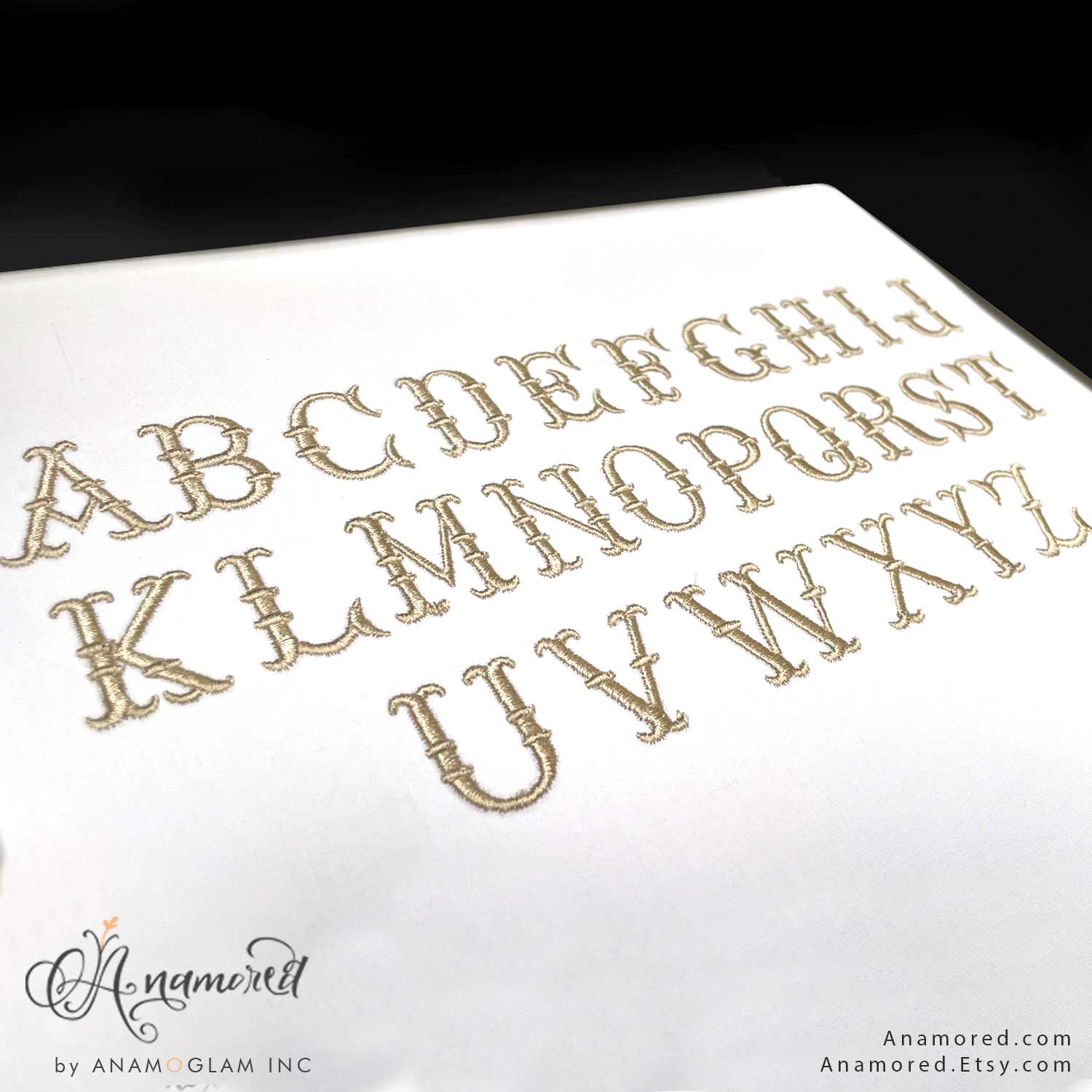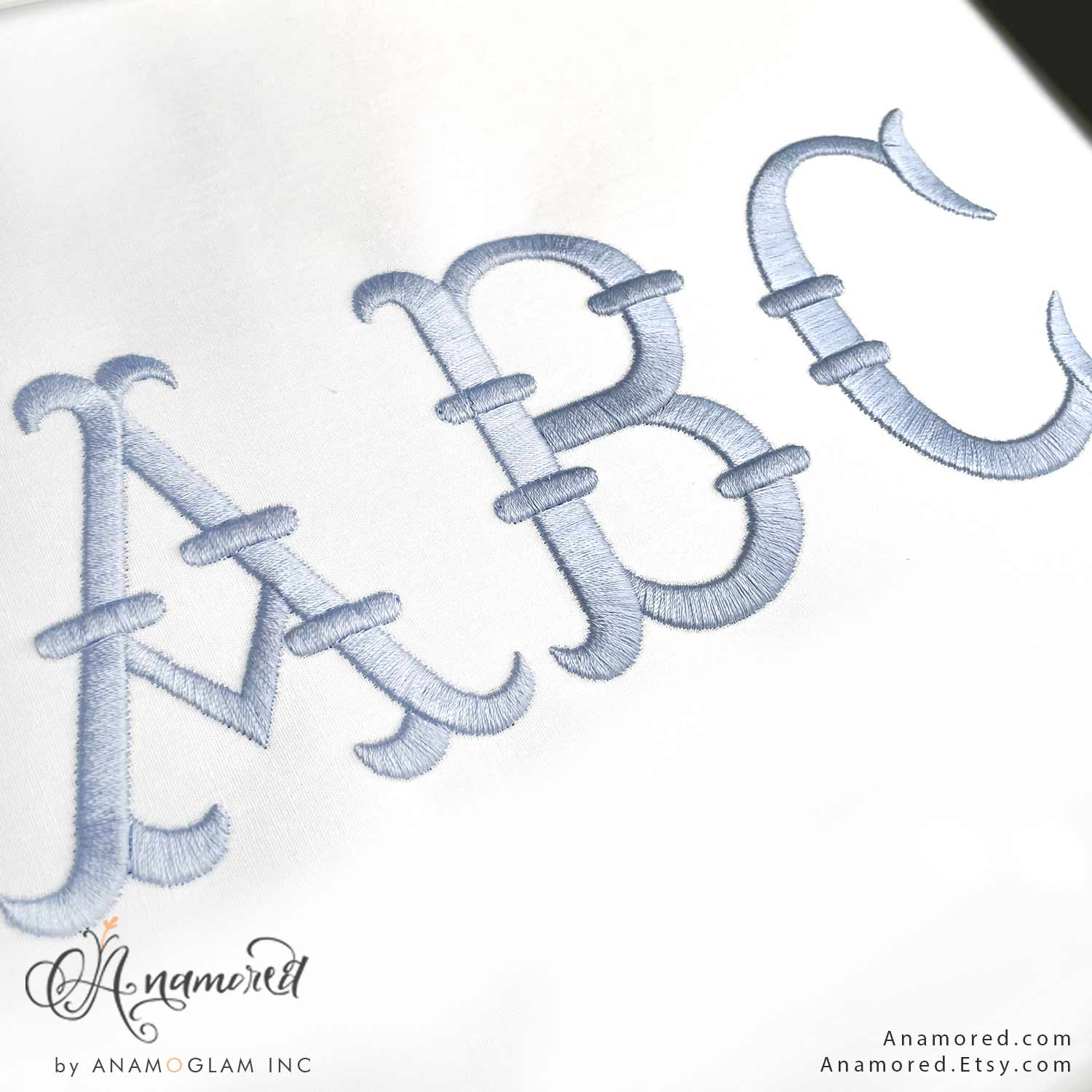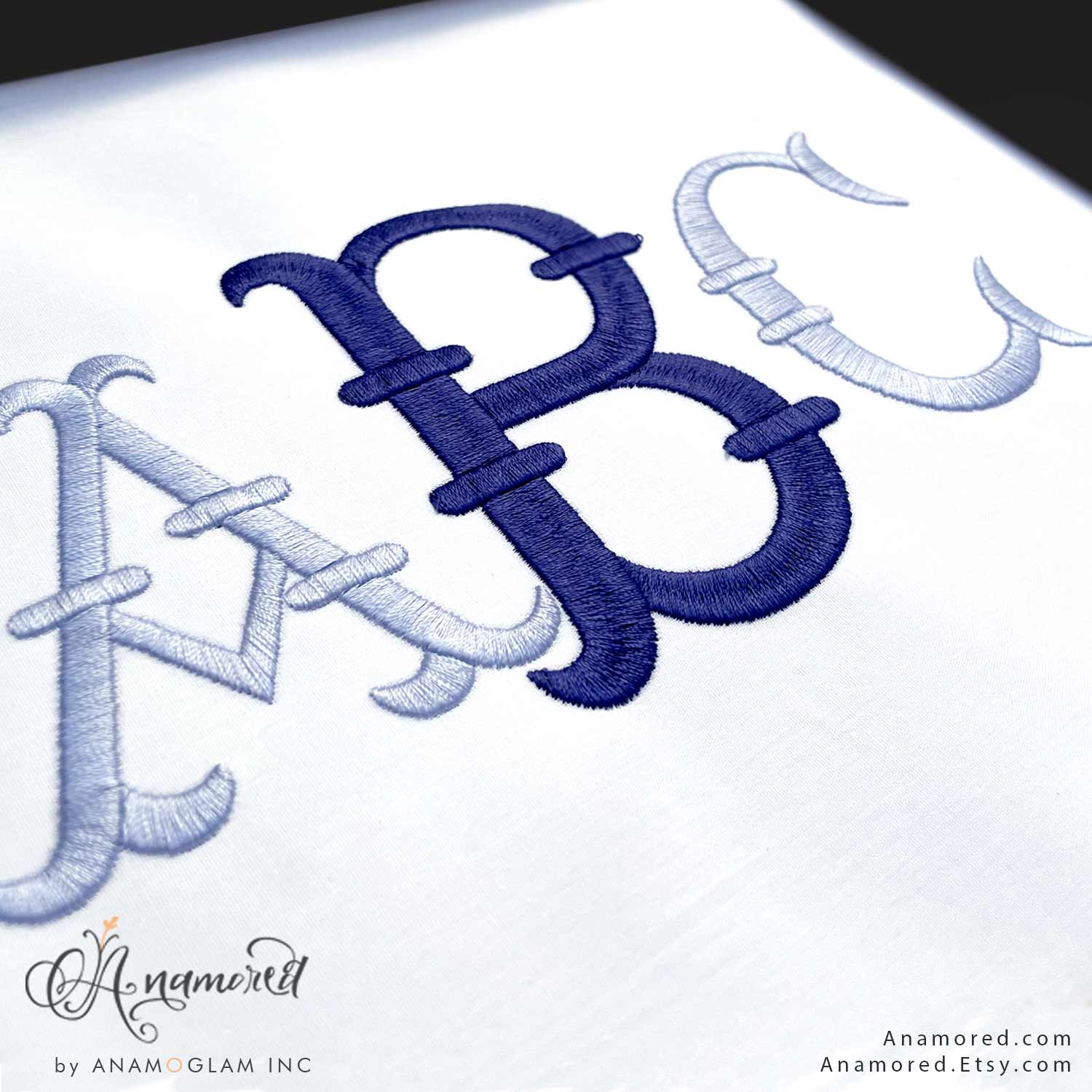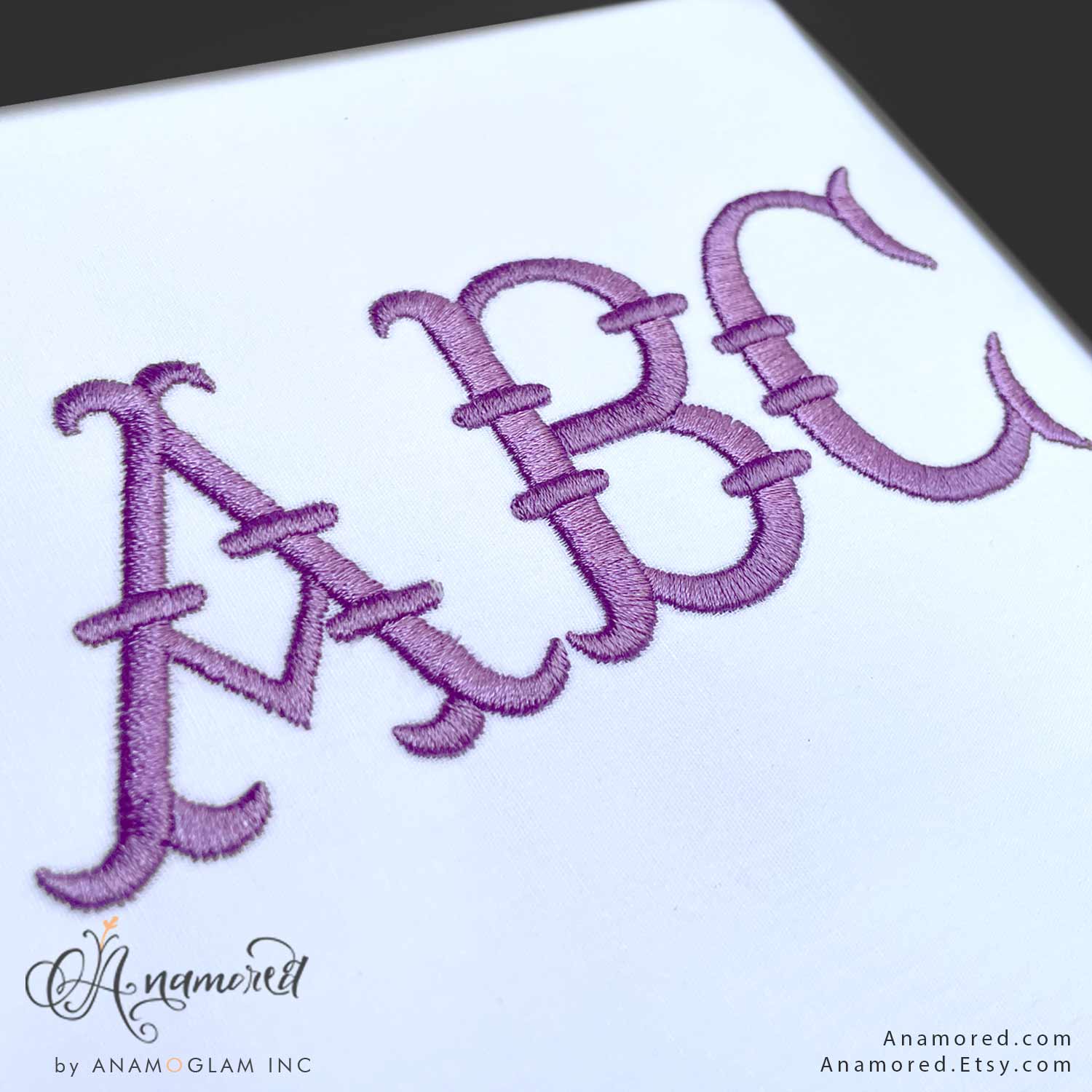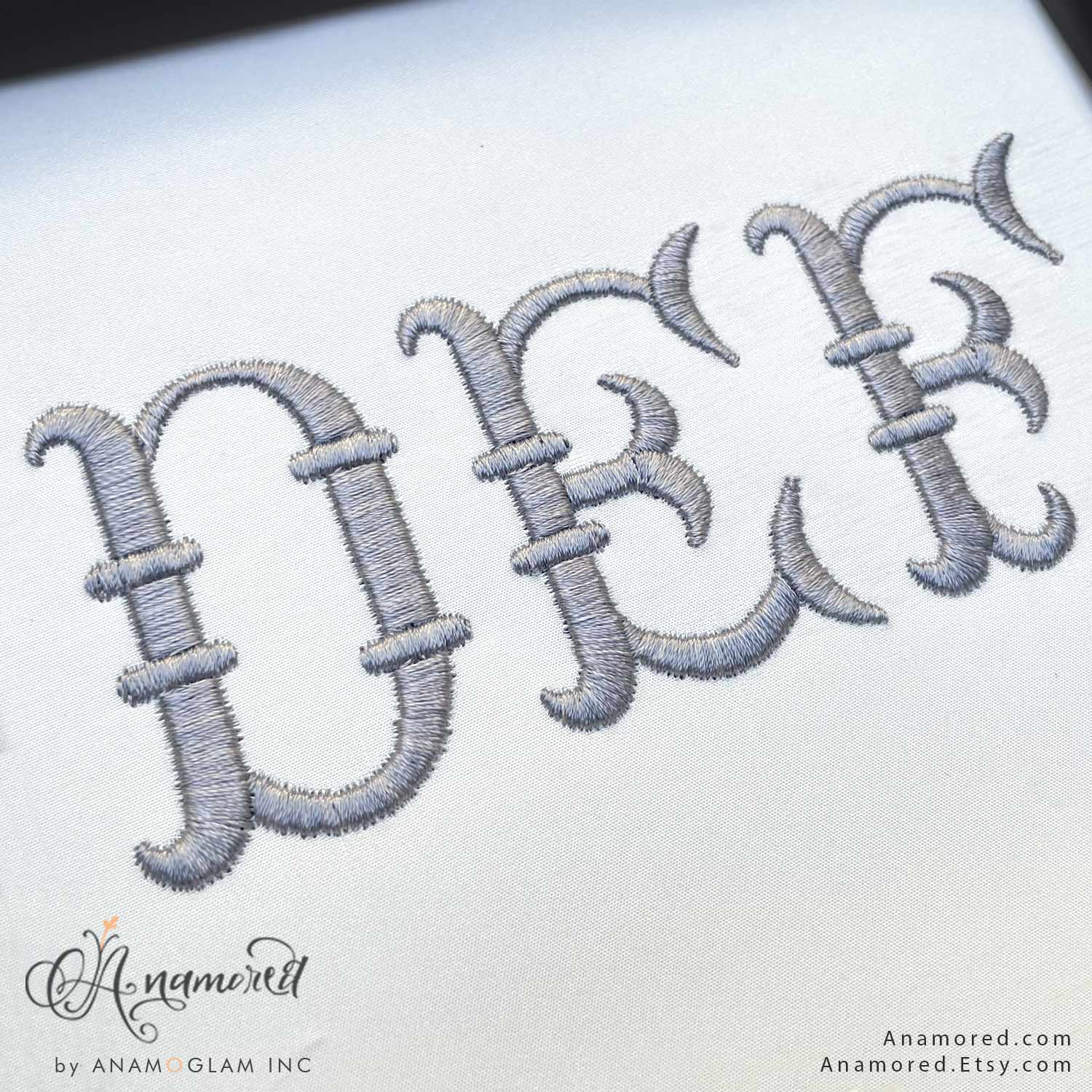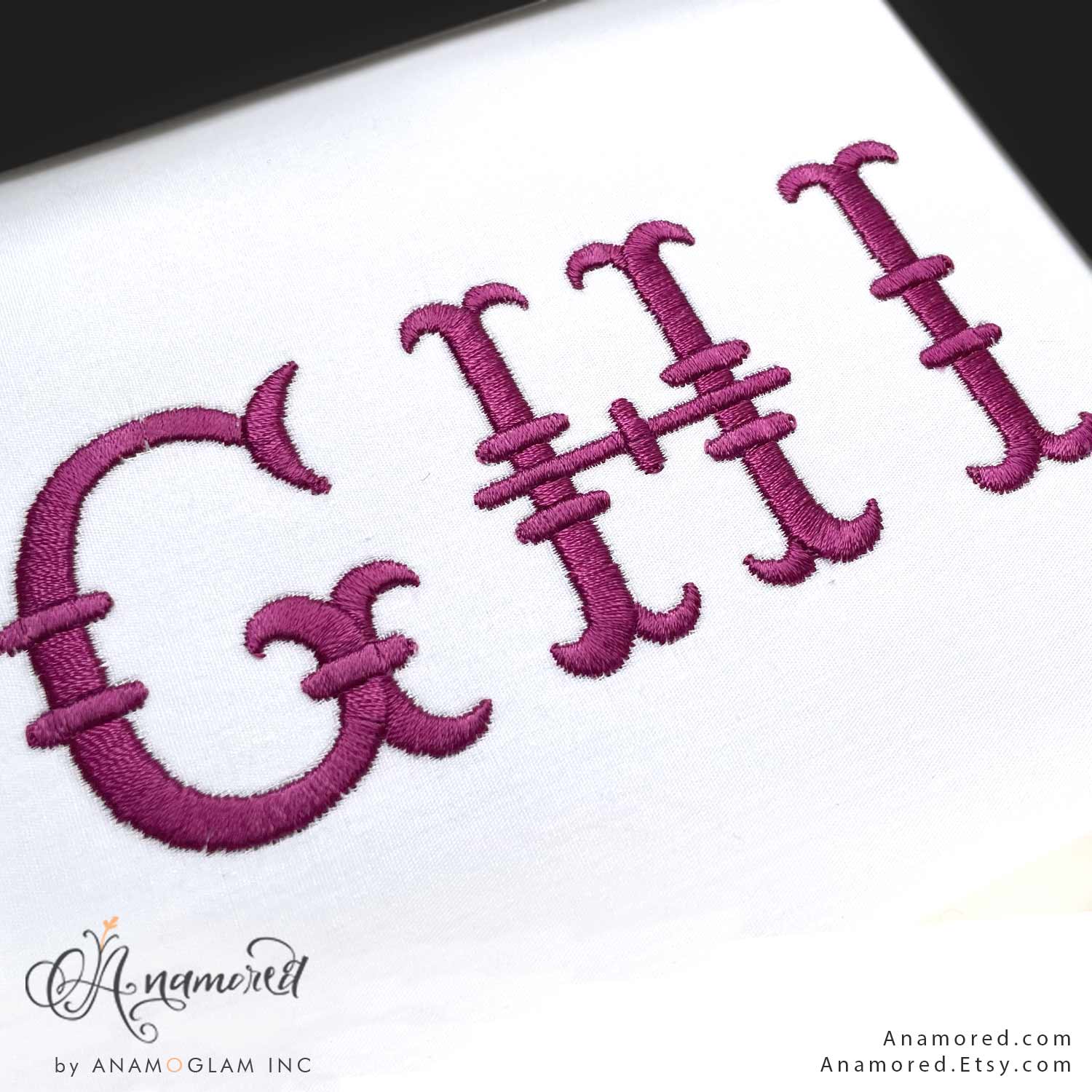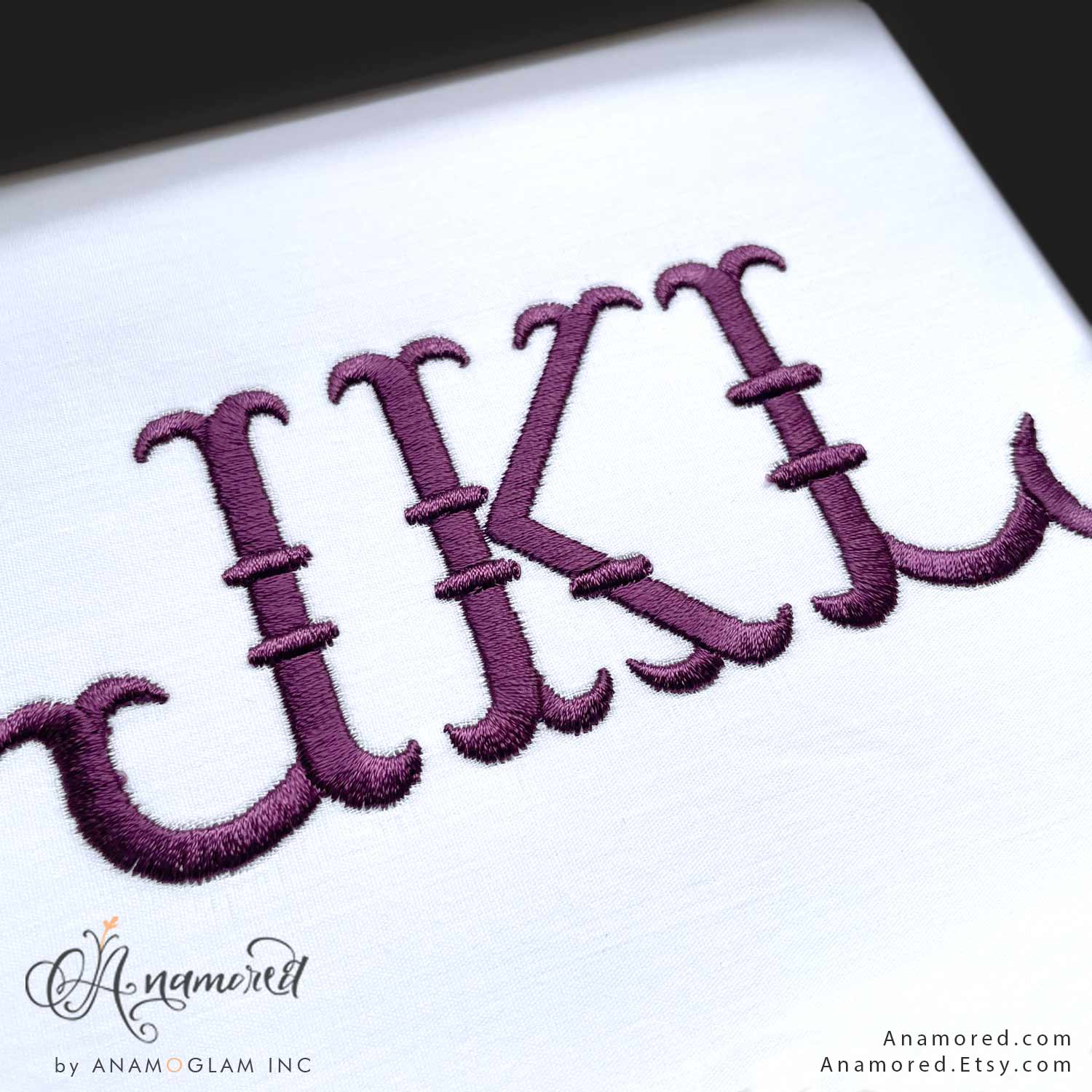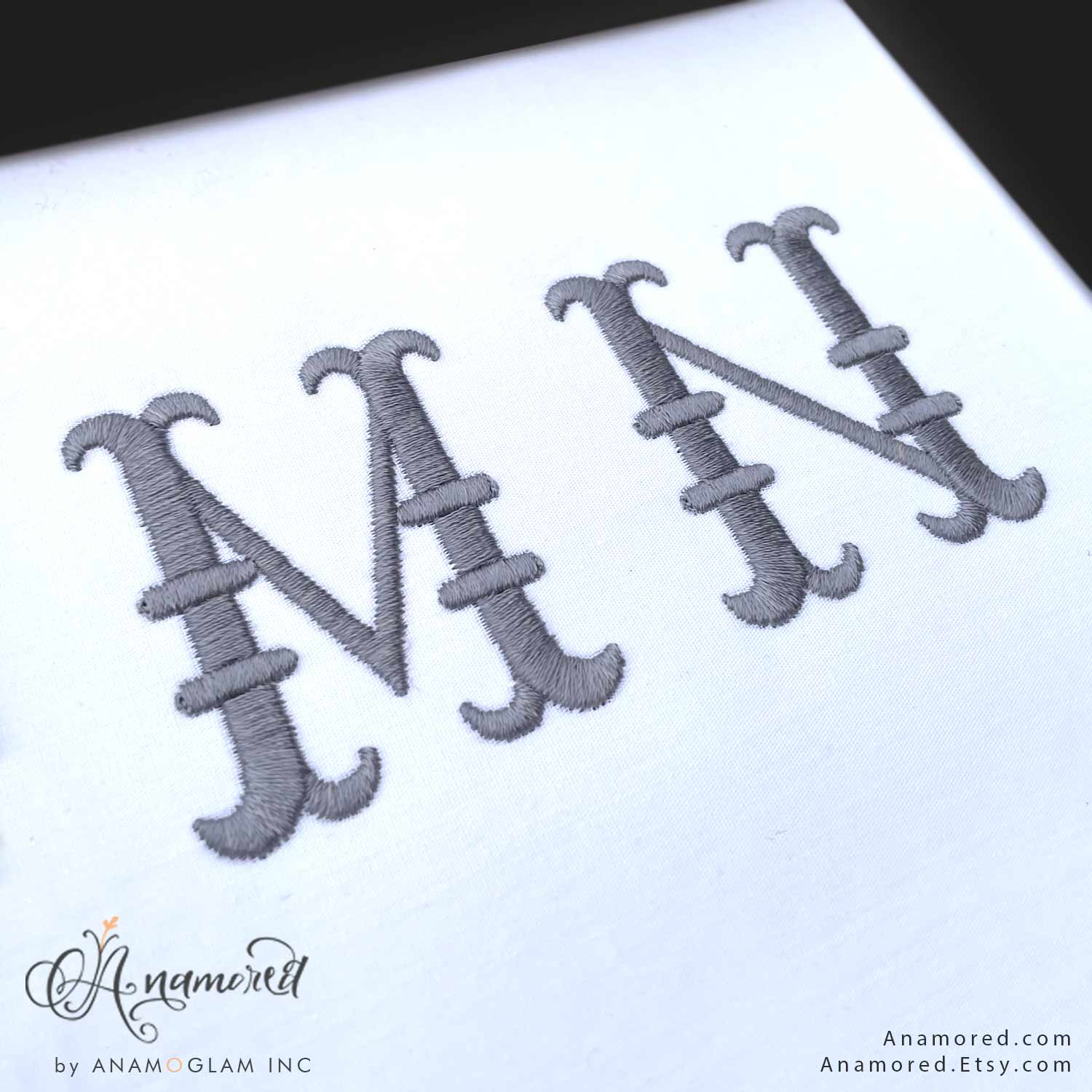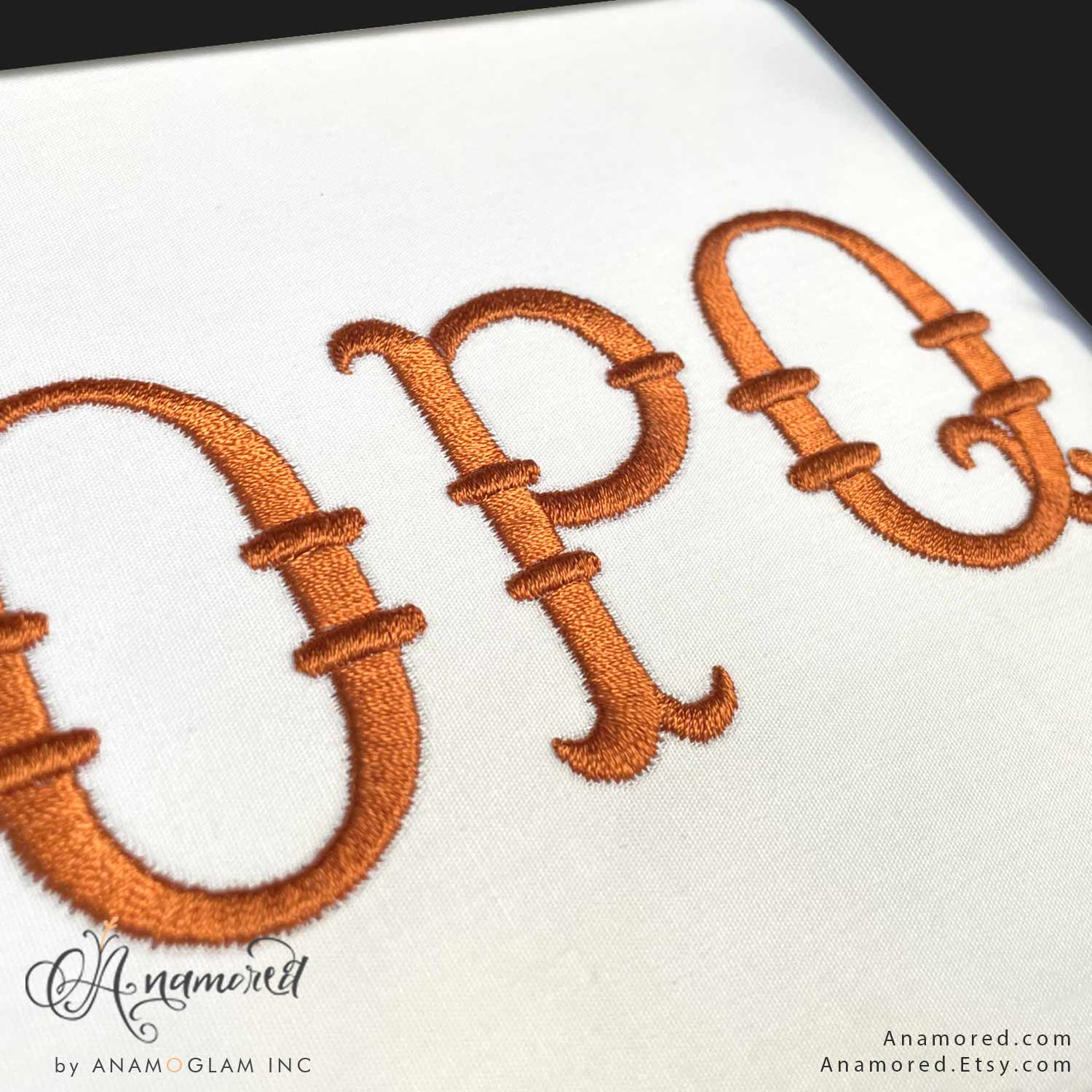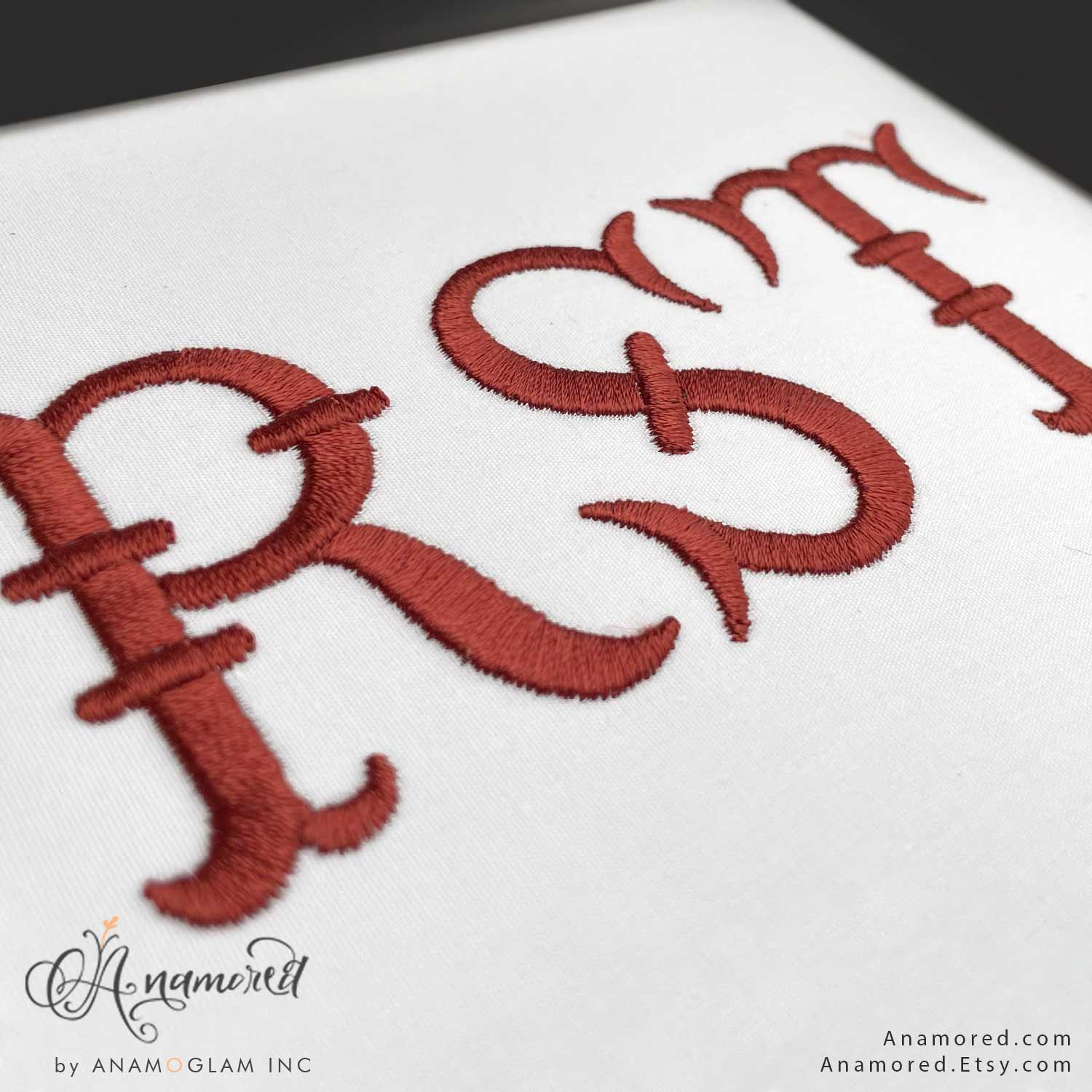
3 sizes (1, 2, 3 inch) Medium French Fishtail Machine Embroidery Monogram Font
French Fishtail Embroidery Monogram Alphabet
Great for athletic designs too.
Satin stitch. Split Satin in wide areas.